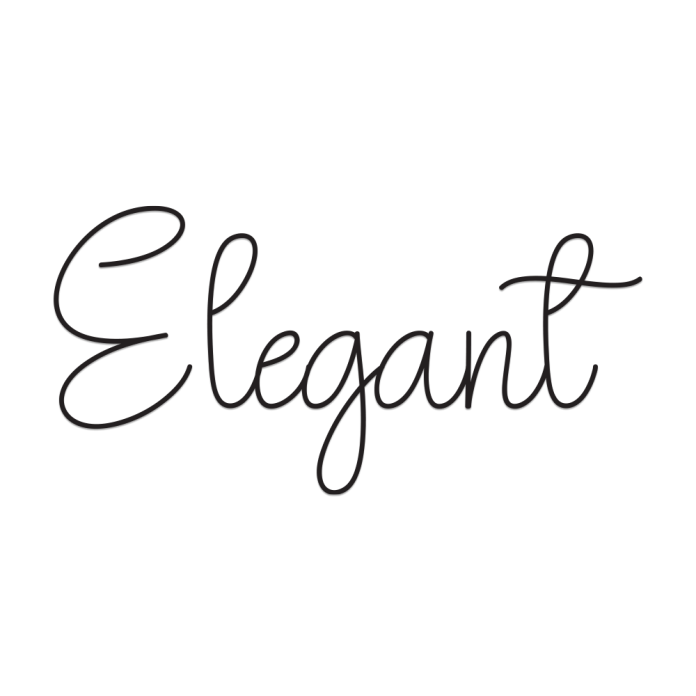
Elegant is a beautifully refined handwritten font that exudes class and sophistication. With its smooth curves and delicate flow, this font is the perfect choice for wedding invitations, luxury branding, elegant quotes, and fashion-themed designs.
Every stroke is thoughtfully crafted to bring a sense of timeless beauty to your work.
Elegant Handwritten Script
Perfect for Invitations, Logos & Beauty Branding
Add a touch of refined charm to your design with Elegant – where handwriting meets luxury.